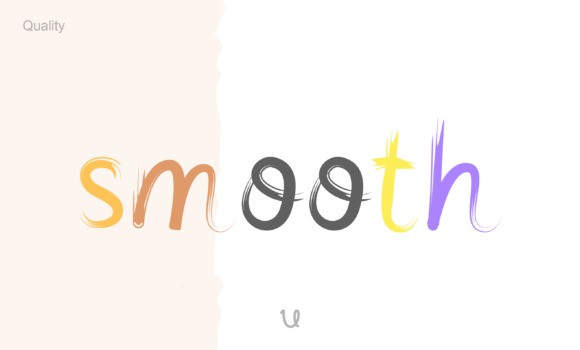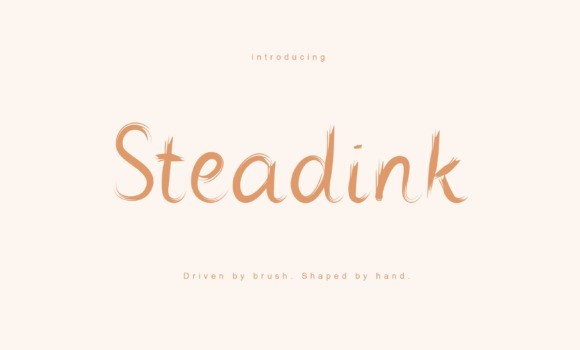
Steadink Font
Steadink Font a seamless handwritten typeface defined by its ink-driven elegance and mastered fluidity that dances between precision and personality. Inspired by a crisp, intentional stroke, the effortless movement of each character sparkles with a natural self-assurance. Redefining modern branding with its soothing aesthetic, this font offers unrivaled readability while lending a tantalizing human touch to your storytelling. An absolute delight for editorial connoisseurs seeking sophistication cast in ink, Steadink personifies subtle charisma and versatile appeal. Immerse your narratives in this exquisite scripted spectacle to translate the language of refined elegance.